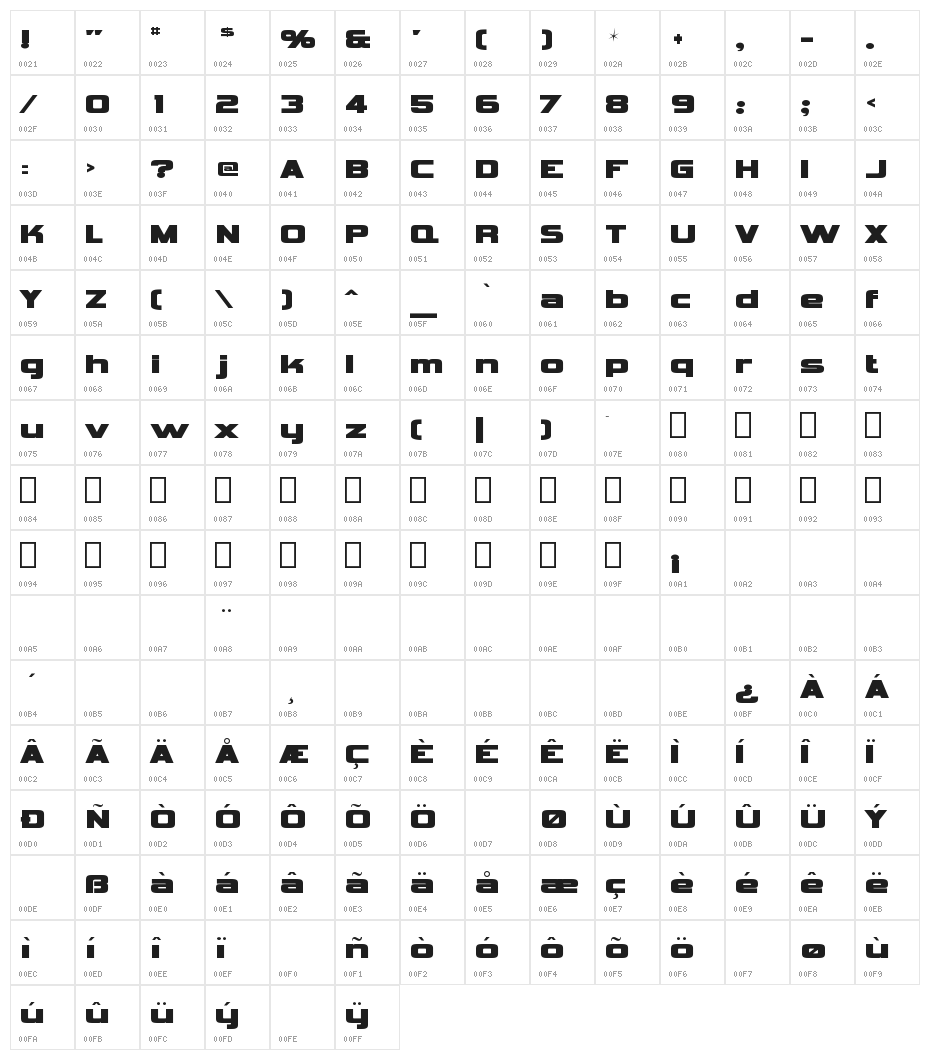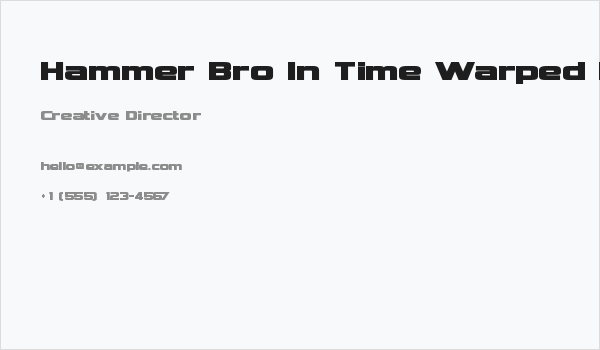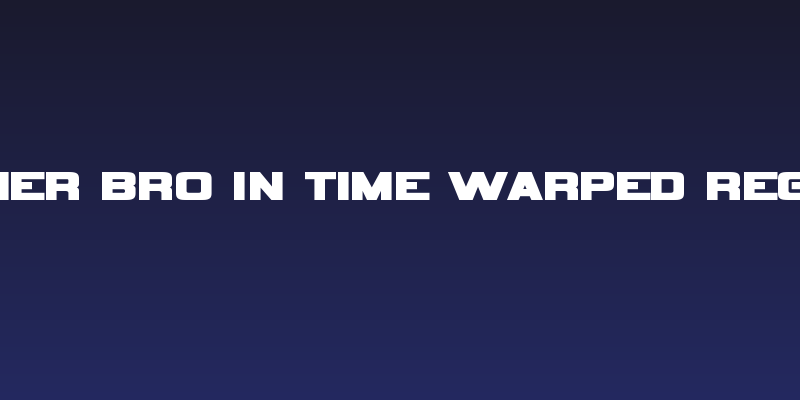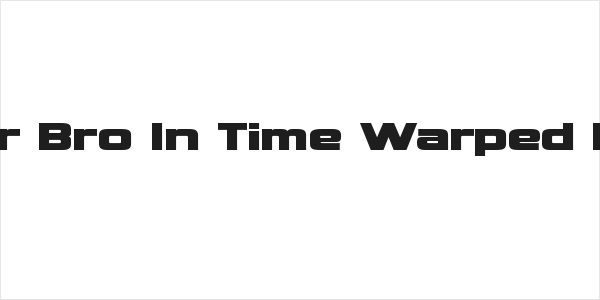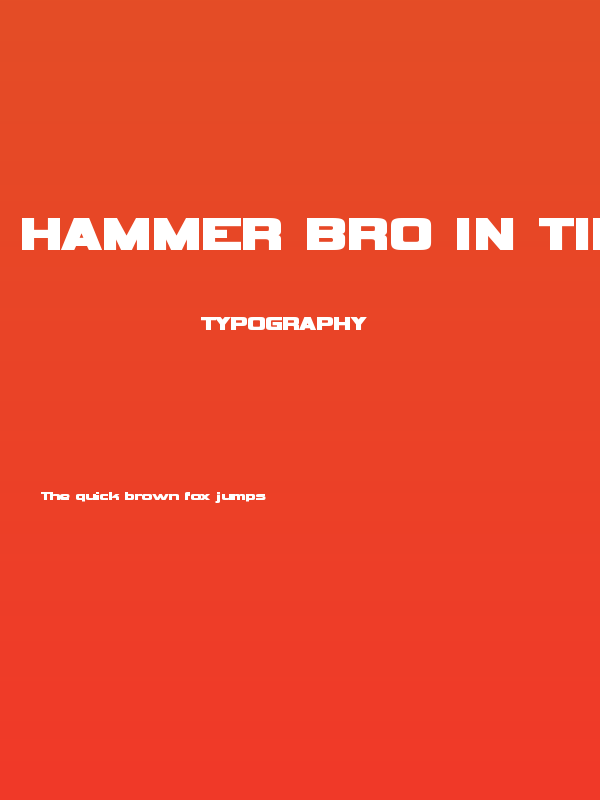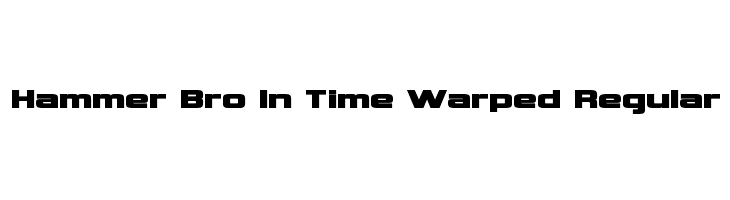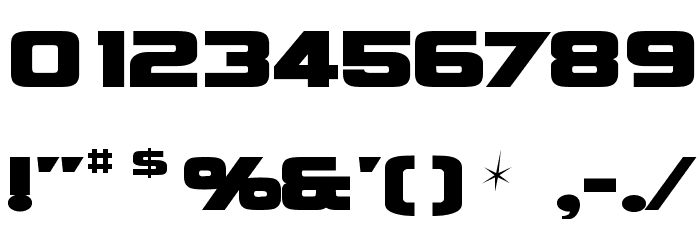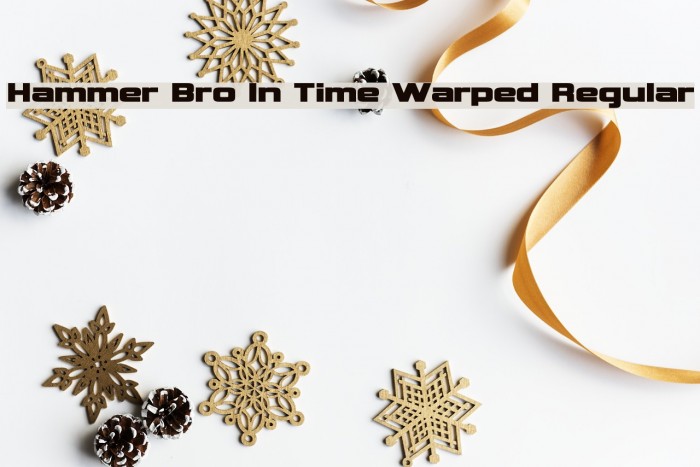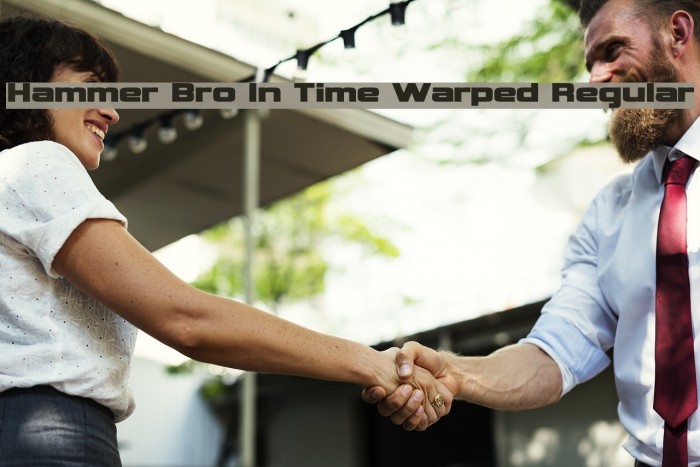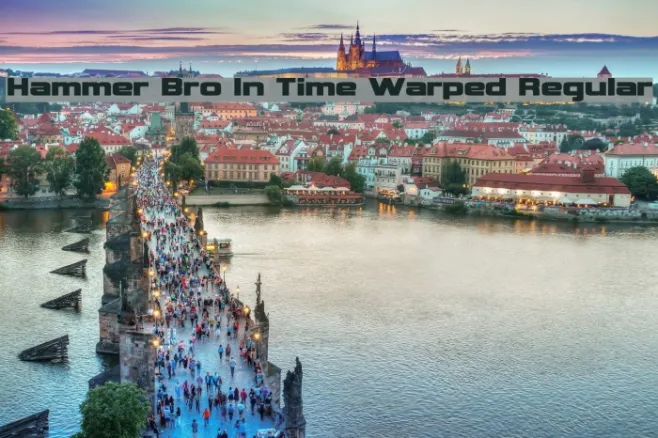
Hammer Bro In Time Warped Regular Font
Hammer Bro In Time Warped Regular Description
This font features a bold and geometric design with a futuristic flair. The characters are constructed with strong, angular lines and a consistent stroke width, giving it a robust and modern appearance. The uppercase letters are particularly striking, with a blocky and compact form that commands attention. Lowercase letters maintain the same boldness, ensuring readability while retaining the font's distinctive style. The numerals are equally bold, matching the overall aesthetic. Special characters are designed to complement the alphanumeric set, maintaining the same angular and solid structure. This font is ideal for projects that require a strong visual impact and a modern, tech-inspired look.
| Proposed Projects | Ideal for technology branding, video game titles, sci-fi posters, and modern logos. |